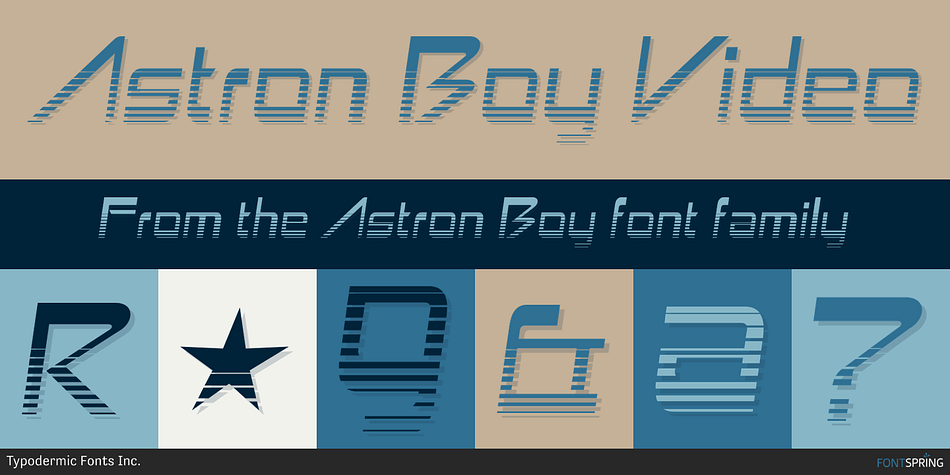
Astron Boy Video
Astron Boy is a display font family. This typeface has four styles and was published by Typodermic Fonts Inc.
Introducing the rounded-square Astron Boy typeface, a font that’s born from the technologically advanced world of vintage laserdisc video games. This font is the product of the inspiration garnered from Astron Belt, a game that pushed the boundaries of gaming technology in its time.
With a variety of styles to choose from, including standard, italic, shaded, and striped, you can add a touch of geeky, techno flair to your designs. The Astron Boy typeface is perfect for those looking to infuse their work with a sense of nostalgia for the glory days of arcade gaming.
So, whether you’re a retro gaming fanatic or just looking for a font that stands out from the crowd, look no further than Astron Boy. With its clean lines and unique style, this font is sure to turn heads and make a lasting impression. Get your hands on Astron Boy today and start designing with a touch of techno style!